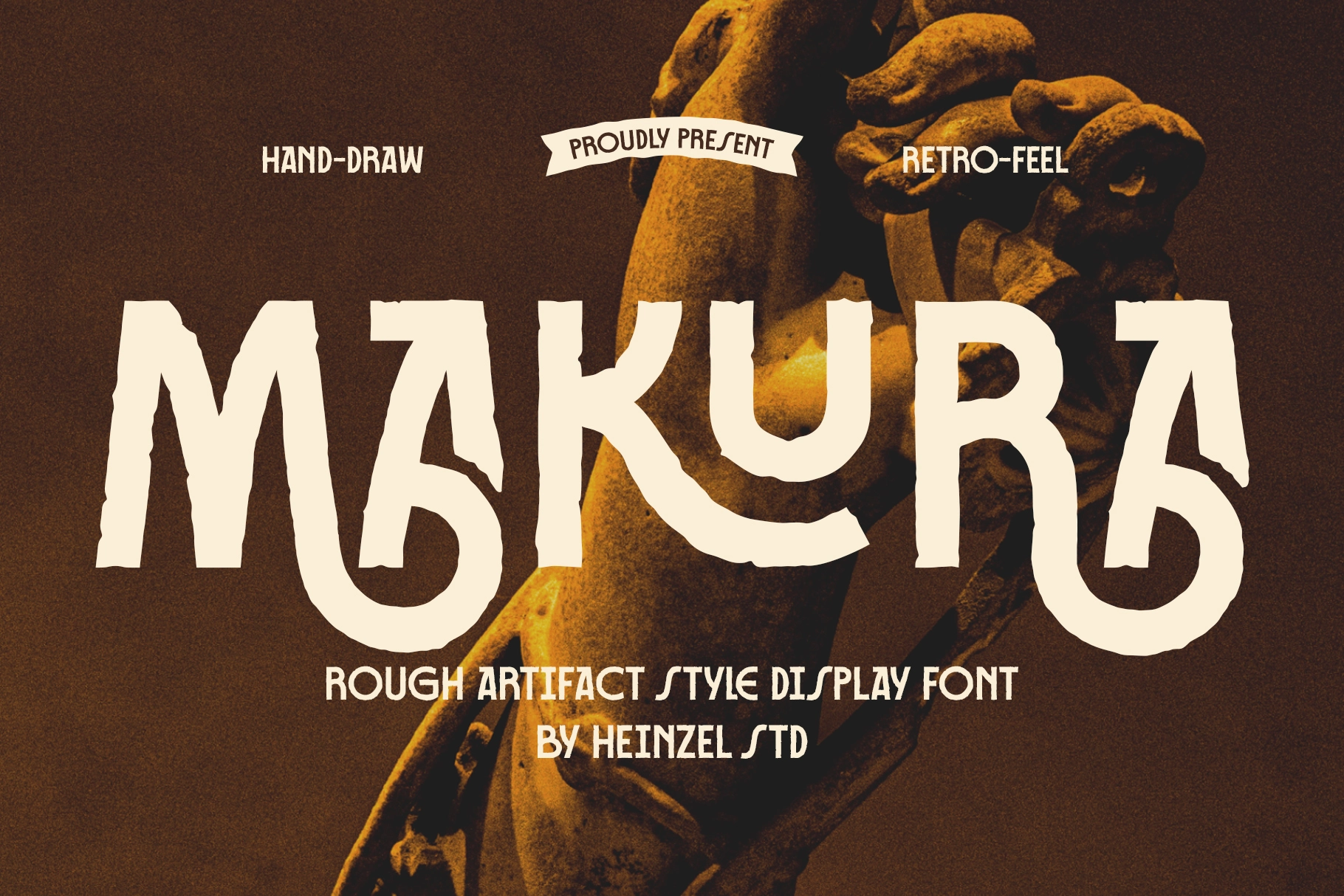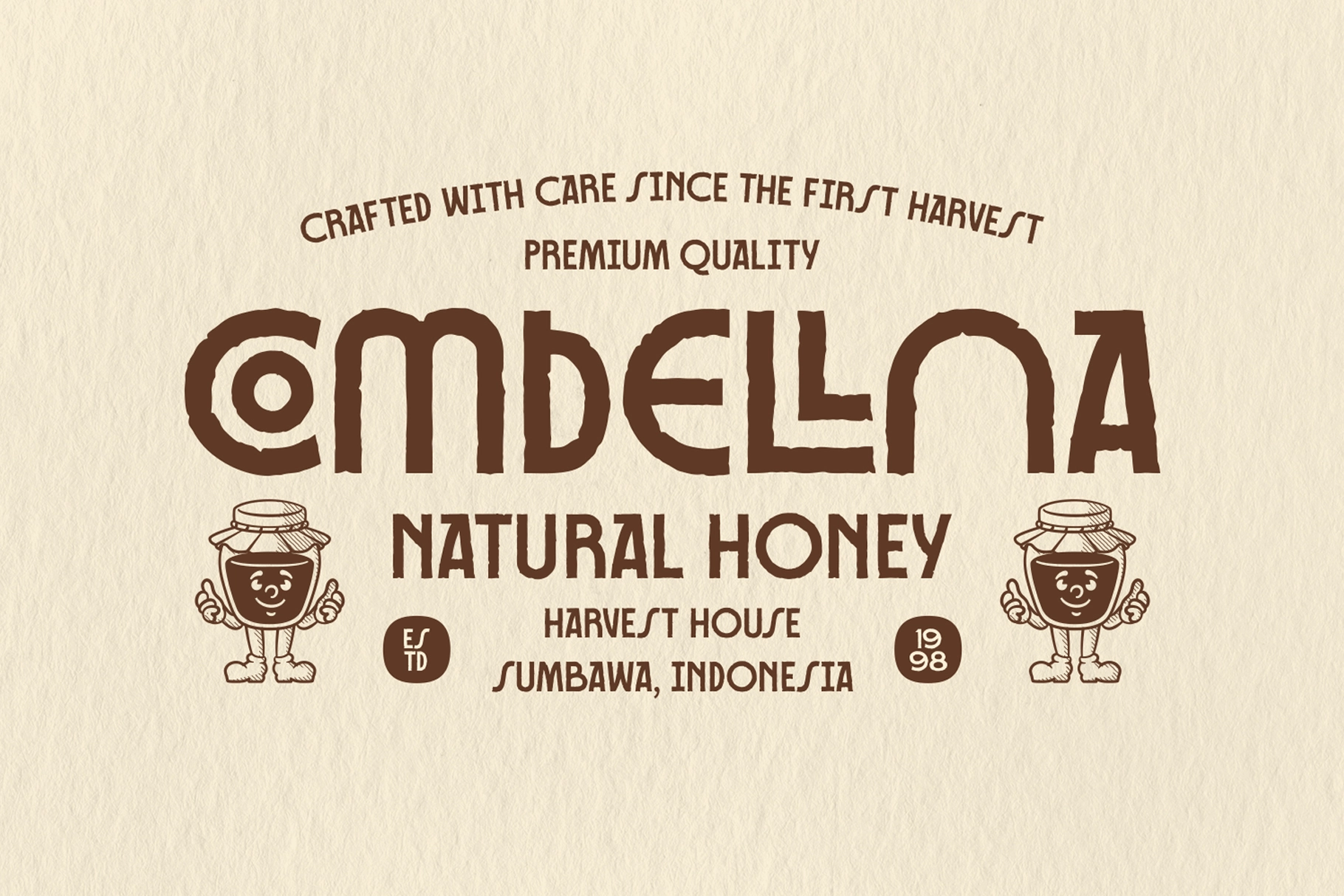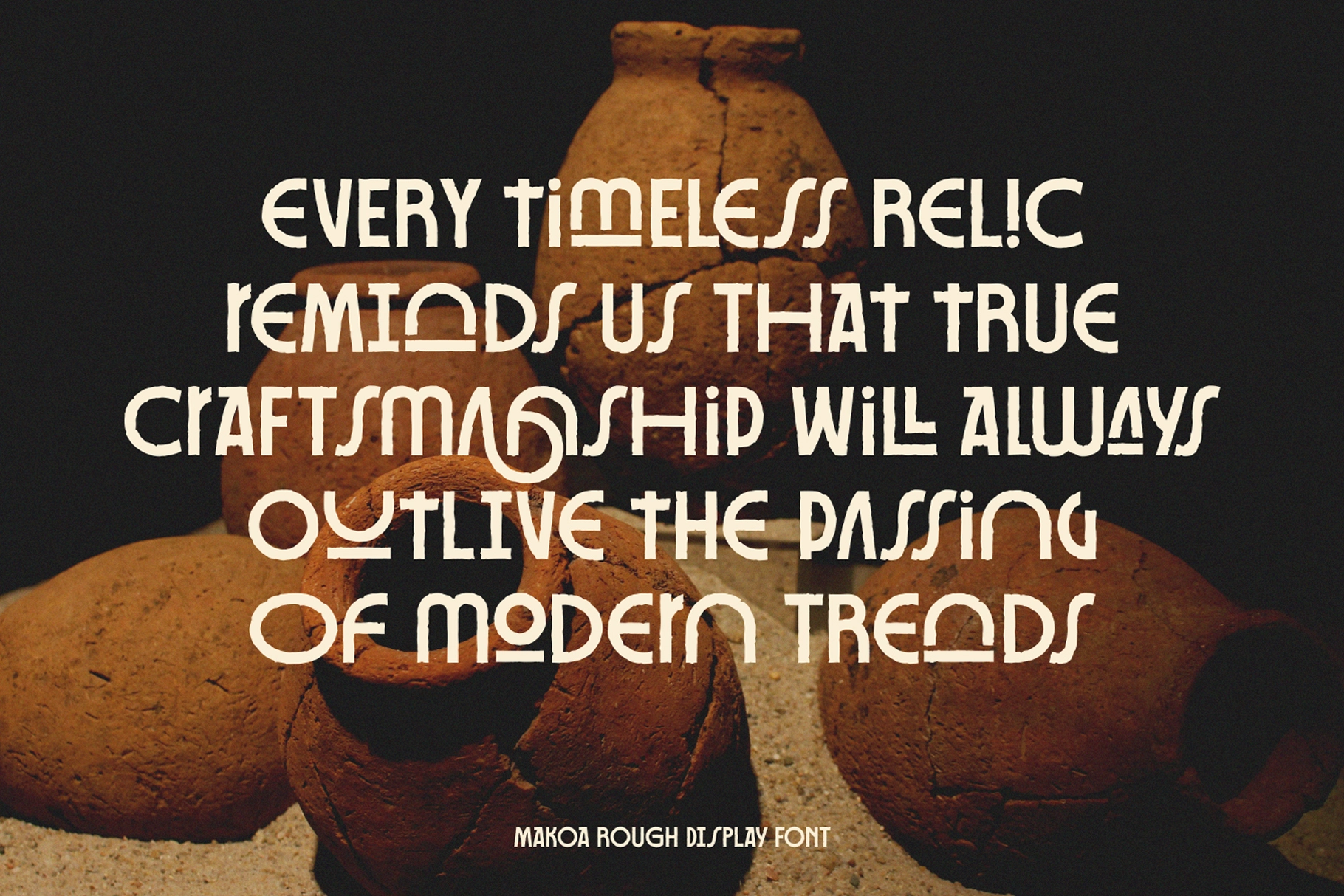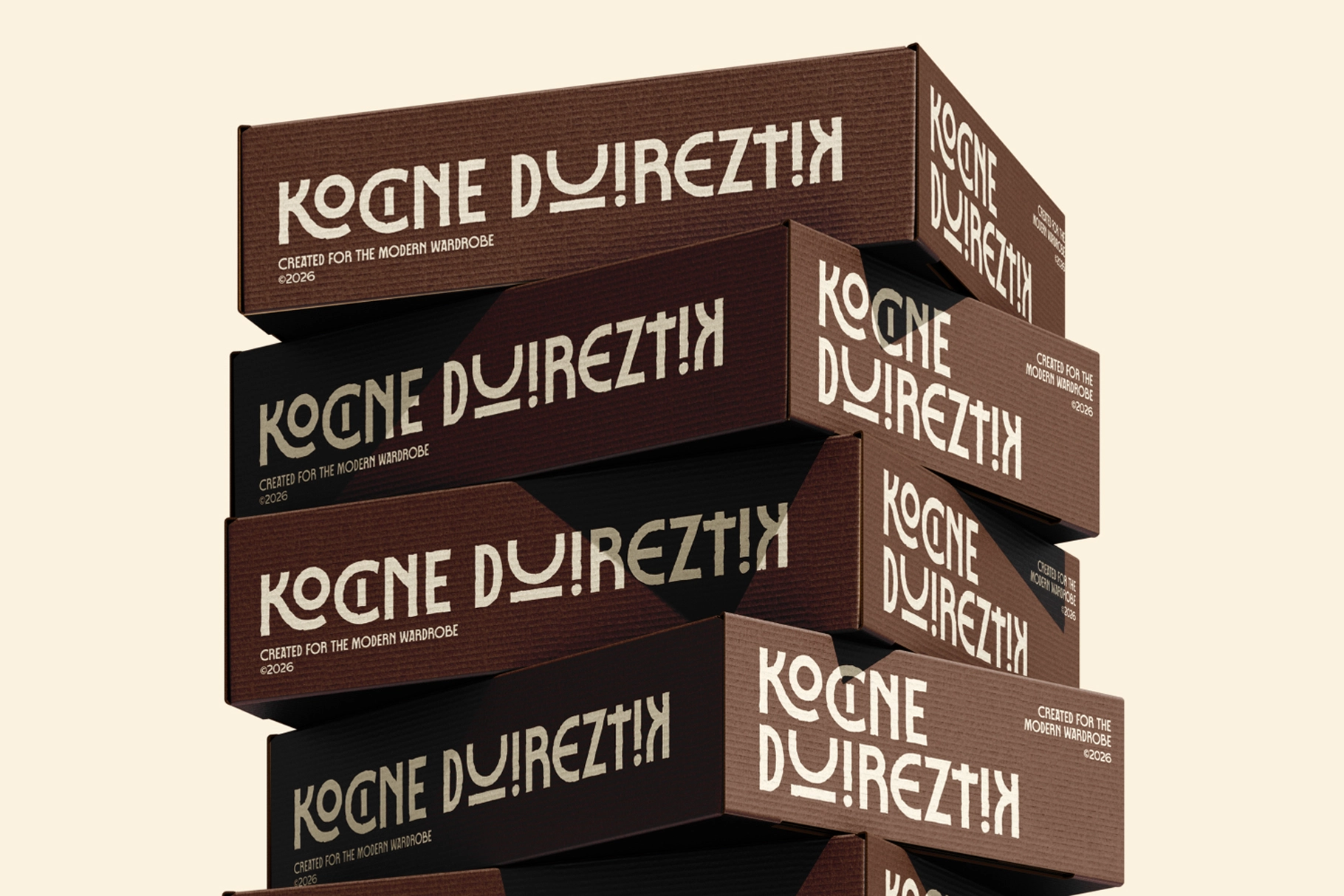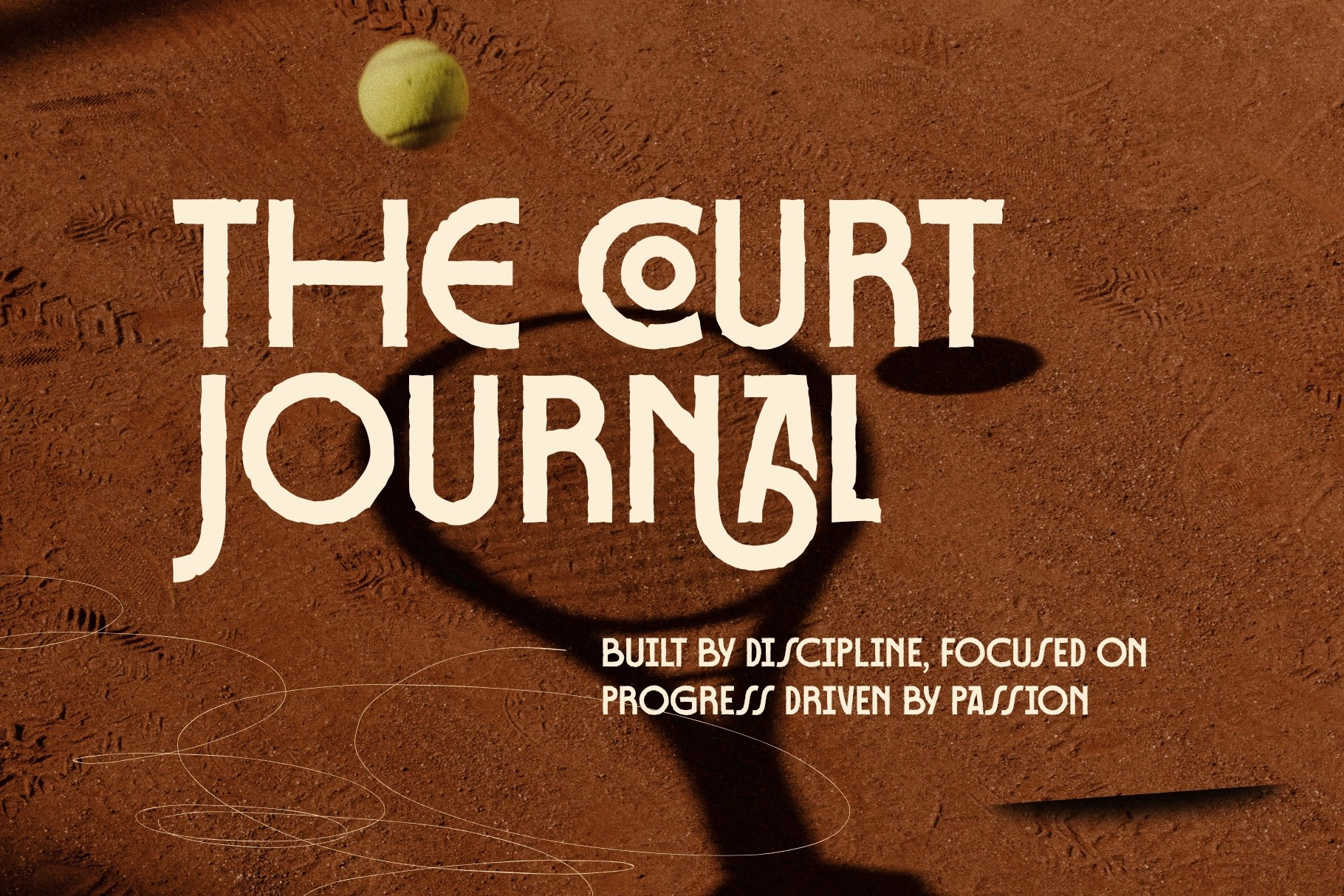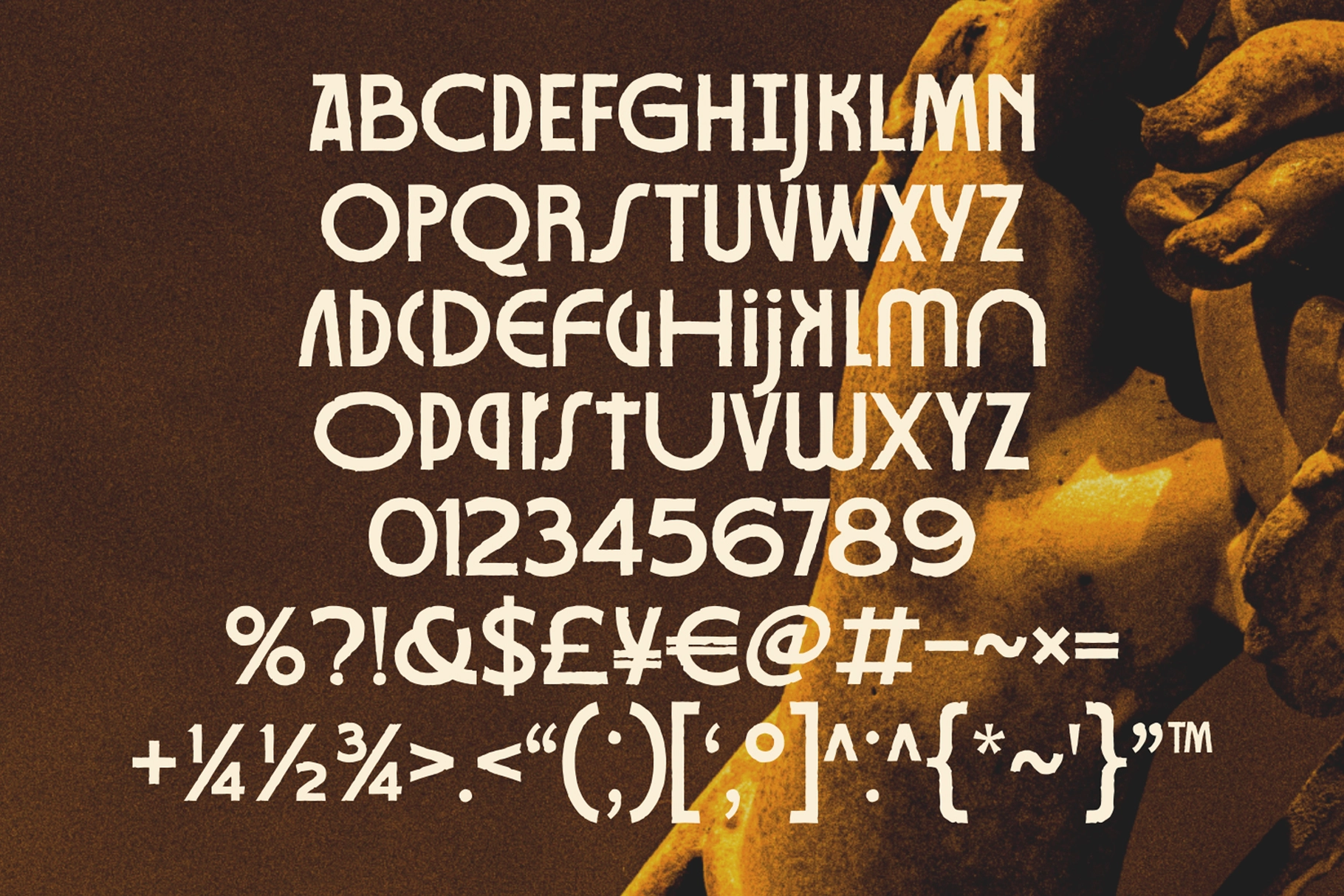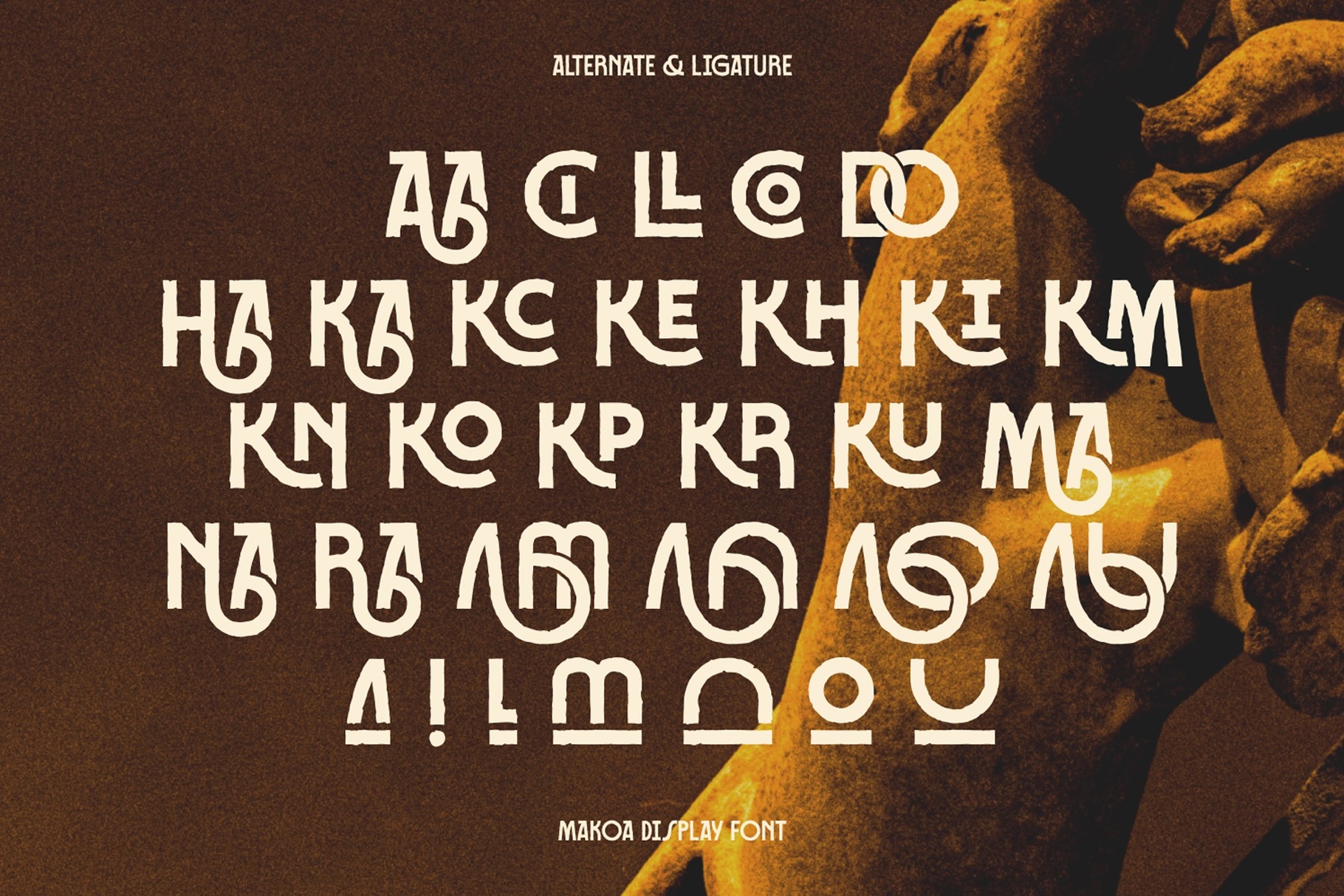
Makura - Rough Artifact Display Font
Makura carves each letter like a weathered stone relief, with chipped edges and slightly uneven baselines that read as hand-cut rather than drawn. This rough hand-carved display font pairs its rugged capitals with knotted alternates — HA, KM, NA, RA and more twist into ambigram-style ligatures that could pass for tribal stonework. The overall texture sits closer to a cracked terracotta relic than a clean poster face, giving headlines an archaeological weight.